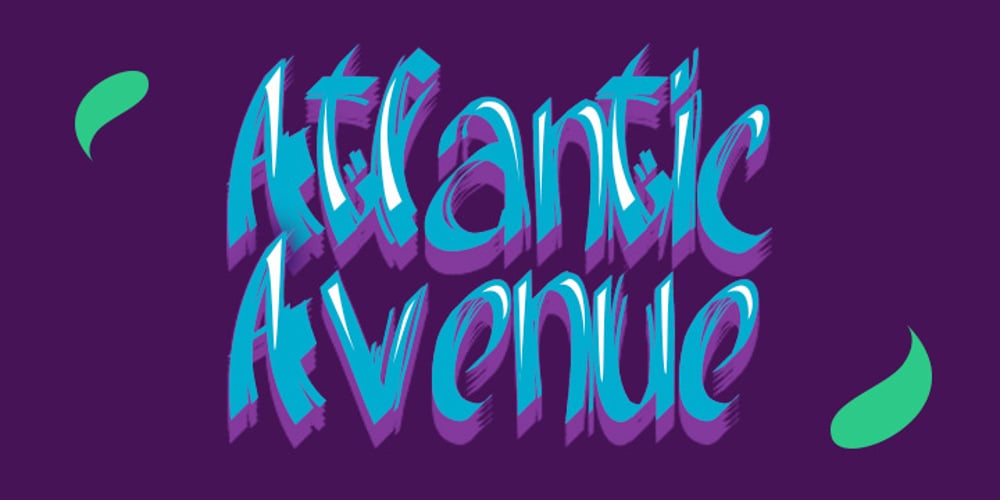
Atlantic Avenue Font Family was designed by David Alexander Slaager and published by Fonts of Chaos. Atlantic Avenue contains 1 styles and family package options. Atlantic Avenue is an experimental font made with paint brush on wood, large scan and vectorized.